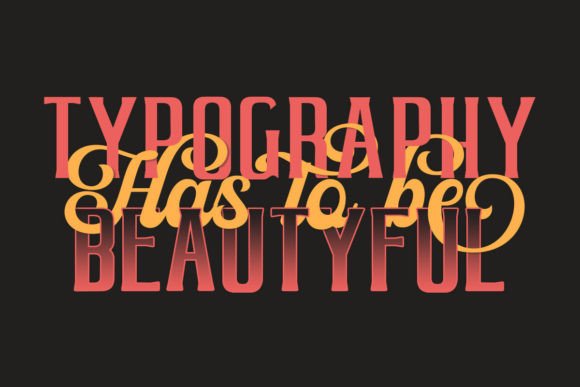
Andhelia Font
Introducing Andhelia Script Duo – Font Family, a new curvy and balanced script typeface that is carefully crafted and full of character. You can use it as a logo, badge, emblem, packaging, title, poster, t-shirt/apparel, greeting card, wedding invitation, etc.
The contours are made softer,  more alternates added for Script Multilingual support added
Flowing characters are ideal for creating attention-grabbing messages. Mix and match Andhelia Script Duo – Font Family with various weights to suit your project.
The alternate characters in this font are divided into several OpenType features such as Style Alternates, Style Sets, and Ligatures. OpenType features can be accessed using OpenType programs such as Adobe Illustrator, Adobe Photoshop, and Adobe InDesign.